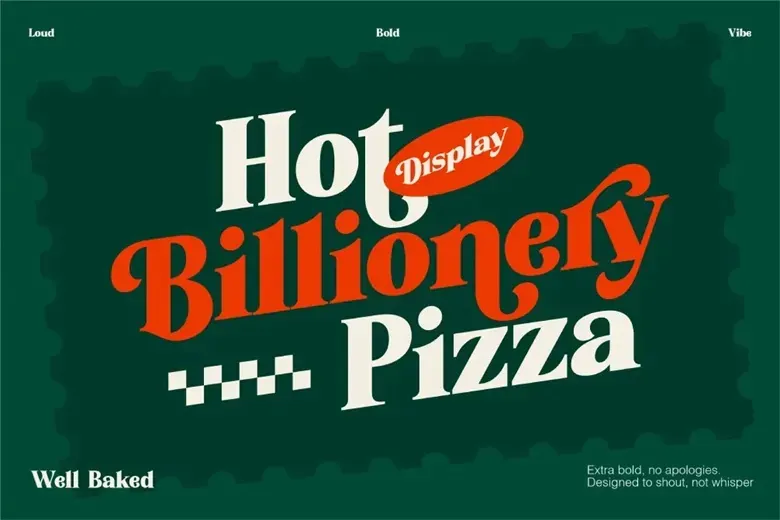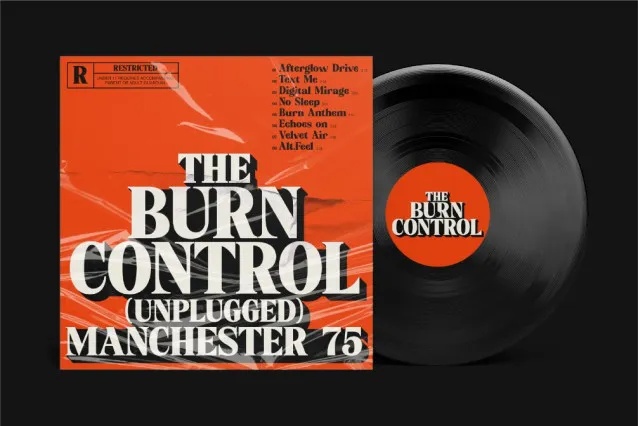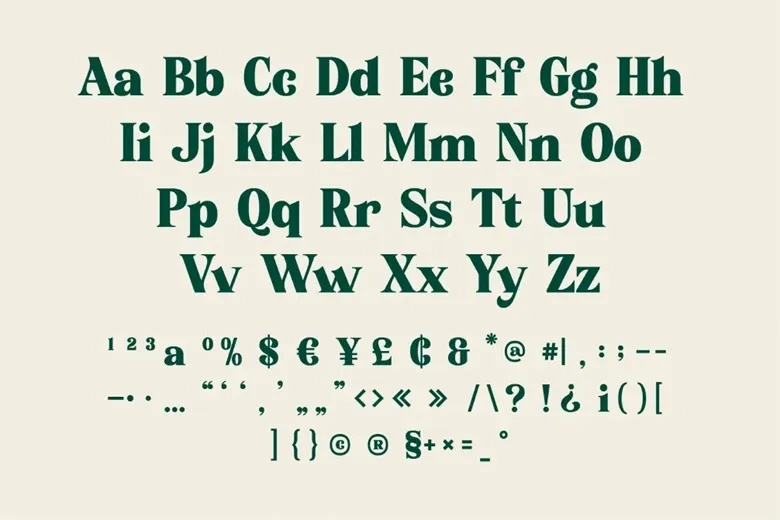
Billionery is a bold and commanding serif typeface crafted to make a powerful visual statement. With its thick strokes and assertive presence, it’s perfect for headlines, logos, posters, and branding that demands attention. The font’s clean precision and strong structure convey a sense of contemporary luxury and editorial sophistication, making it an ideal choice for high-end design work and expressive visual content.
Whether you’re emphasizing a single uppercase word or working with a minimalist layout, Billionery ensures your message is delivered with striking clarity and elegance.